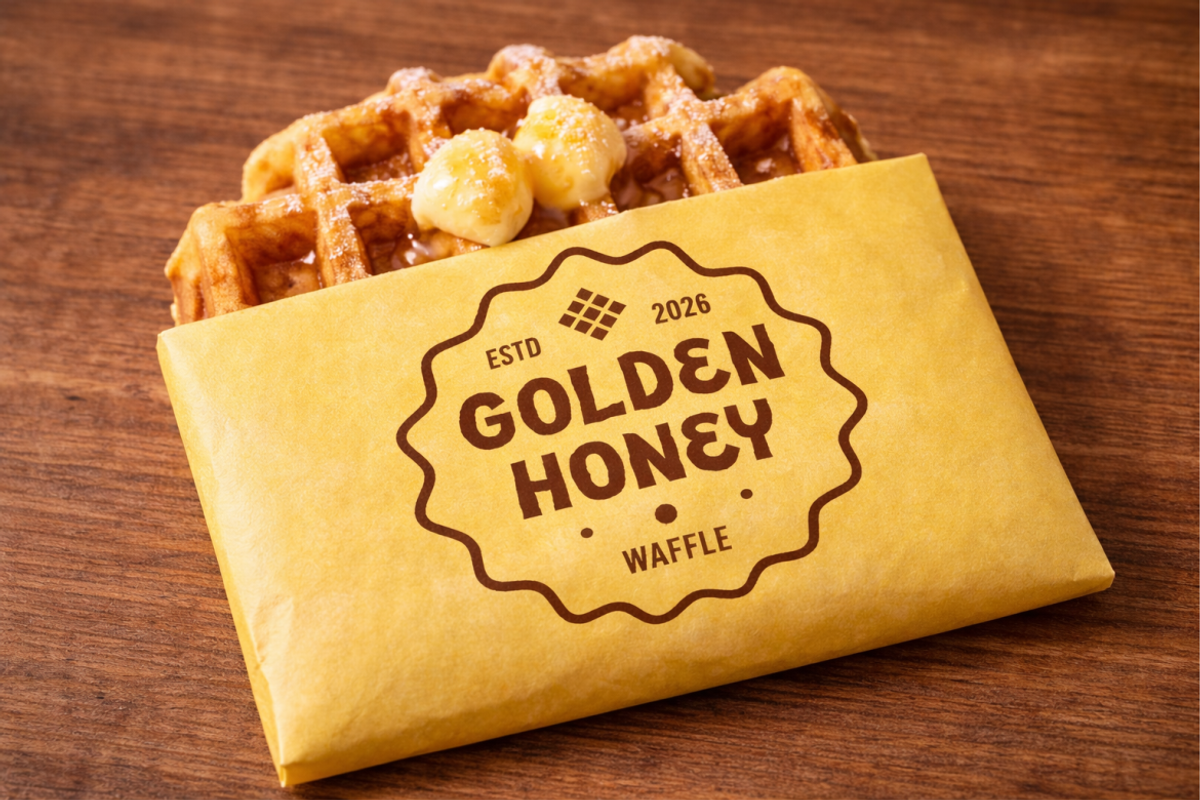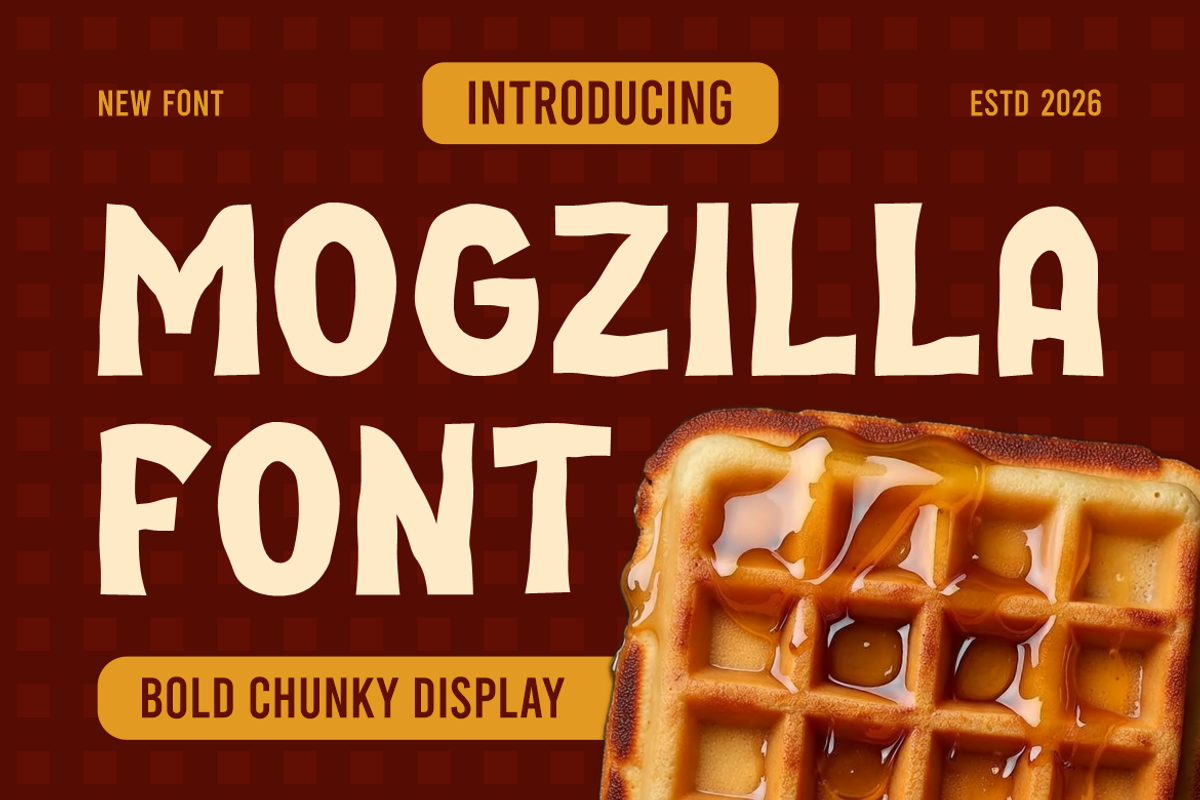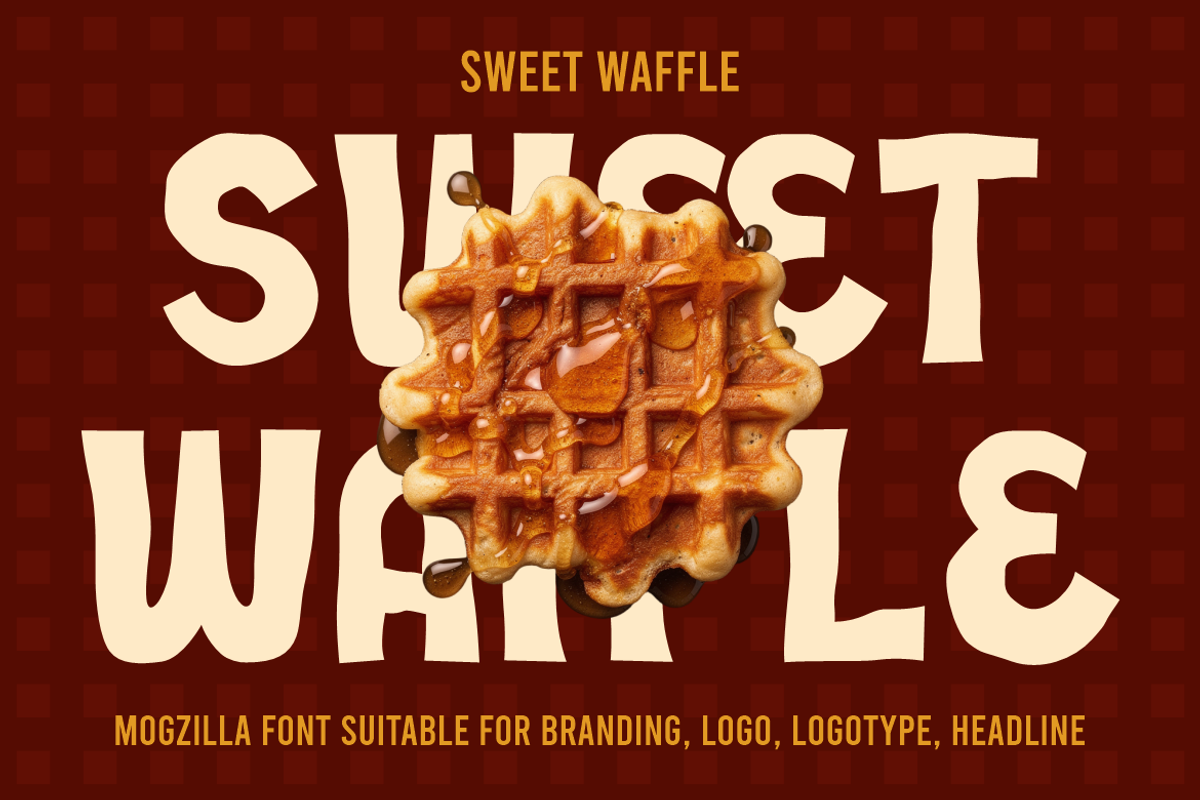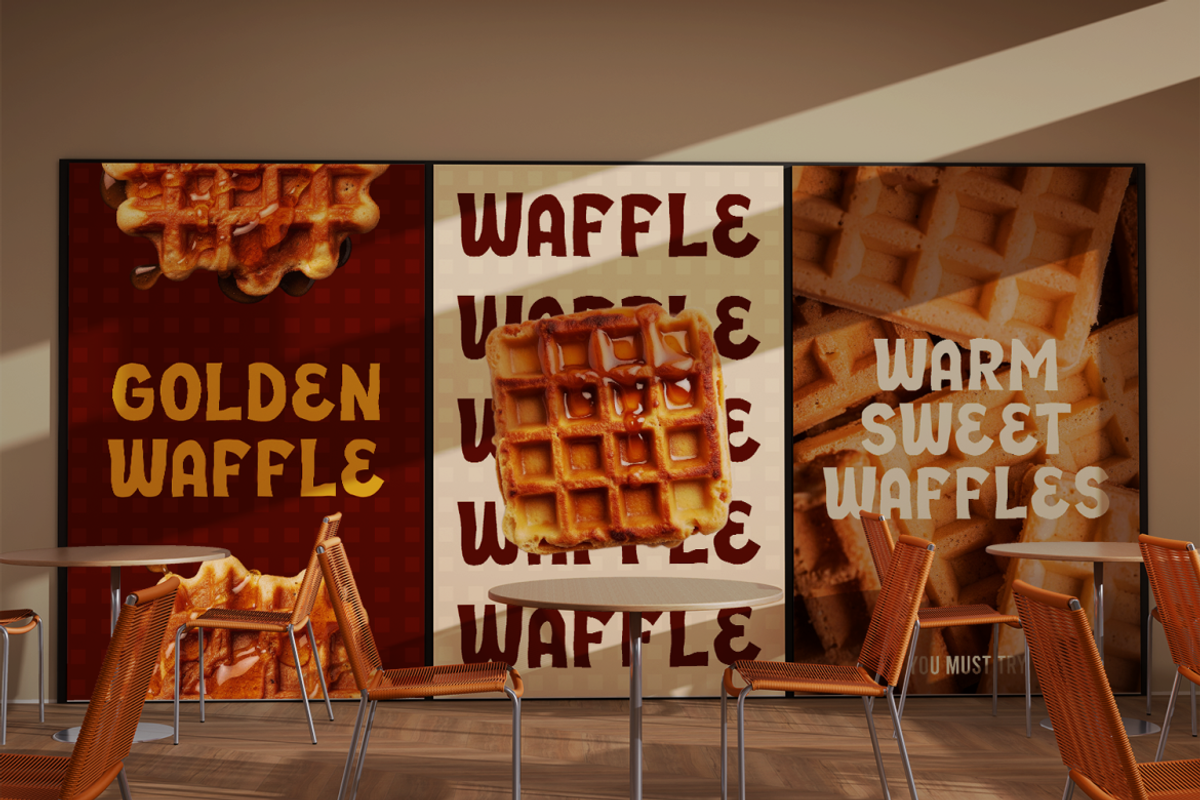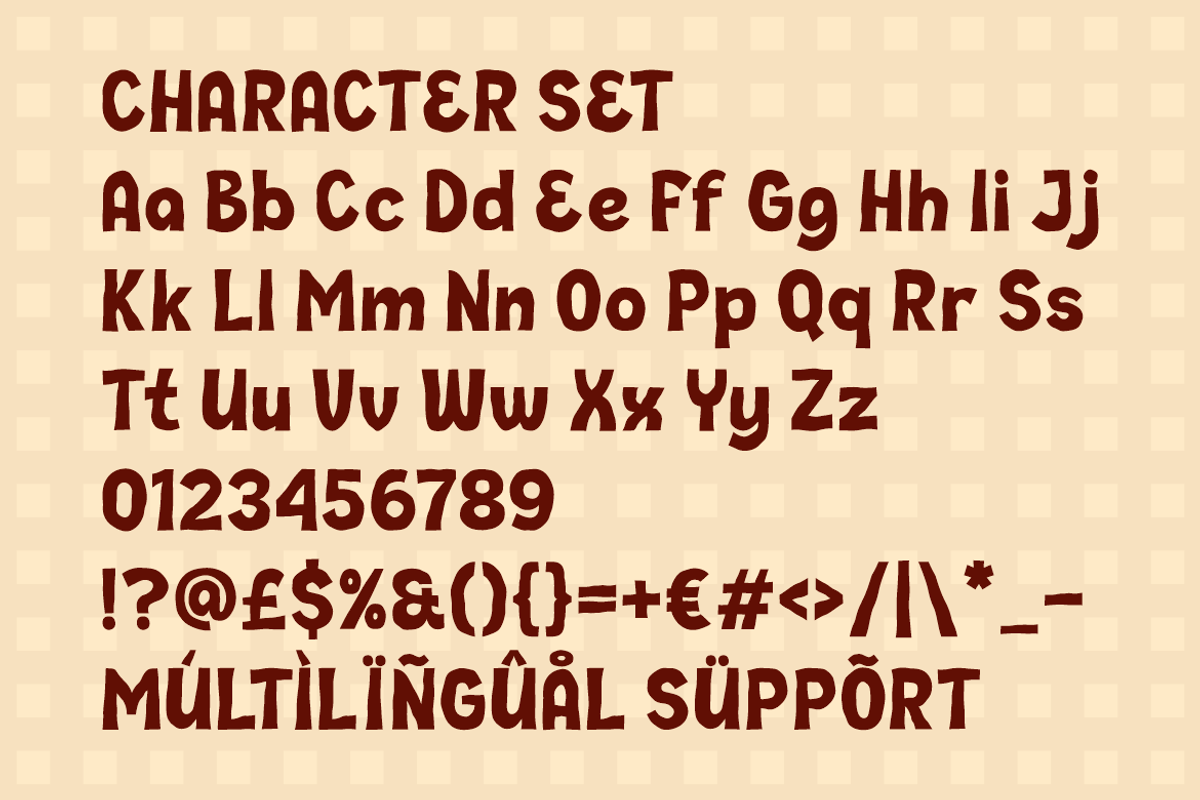
Mogzilla Bold Chunky Font
Mogzilla Bold Chunky Font delivers strong visual impact through thick strokes and compact letter shapes. Each character feels wide, rounded, and solid, with short ascenders and descenders. The height stays consistent, which helps words look stable and grounded. Stroke weight remains heavy and even, creating confident letter presence. Corners appear softly curved, reducing sharp tension and improving friendly readability. Spacing feels tight but controlled, keeping words compact for logo systems. The texture feels smooth and organic, avoiding mechanical rigidity. This structure supports clear recognition at large sizes. The font leans toward playful display typography with a bold personality. It feels fun, friendly, and energetic rather than formal. The style suits food-focused themes that rely on appetite appeal. It works especially well for waffle brands, dessert shops, snack businesses, and casual food services. Headlines, brand names, and short statements gain instant attention using this font.
The font style fits playful and modern display categories with a strong food branding focus. It communicates warmth, sweetness, and approachability through rounded proportions. This makes it effective for logos and brand identities tied to food products. The font supports packaging design, storefront signage, menus, posters, and advertisements. It also works well for headlines, stickers, invitations, greeting cards, book covers, and magazine titles. Creative studios can use it for food campaigns and promotional visuals. The bold structure keeps text readable from distance. This helps brand names stay memorable across marketing materials. Mogzilla Bold Chunky Font fits businesses that value fun character over strict formality. Waffle shops, bakeries, dessert bars, cafes, and food startups benefit most from its tone. The font strengthens brand personality while keeping communication clear and friendly.